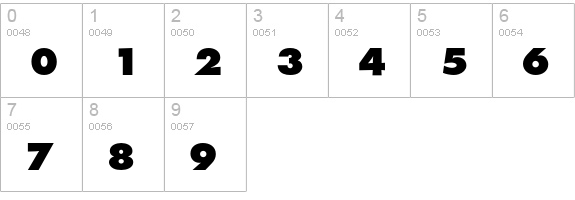
FuturaEF-ExtraBold Font Details
FuturaEF-ExtraBold is an extra-heavy, attention-grabbing variant in the FuturaEF typeface family \xE2\x80\x94 well suited to high-impact headlines, posters, and bold branding.
FuturaEF-ExtraBold is a striking and powerful font that exudes confidence and modernity. Its bold and clean lines make it perfect for grabbing attention and making a statement in any design project. The extra-bold weight adds emphasis and impact, making it ideal for headlines, titles, and branding materials. This versatile font is a must-have for designers looking to add a touch of sophistication and strength to their work. Whether you're creating posters, logos, or website headers, FuturaEF-ExtraBold is sure to make a bold statement. The best part? FuturaEF-ExtraBold is completely free to download at FontsMarket.com. Take advantage of this opportunity to enhance your design projects with this stylish and impactful font today!